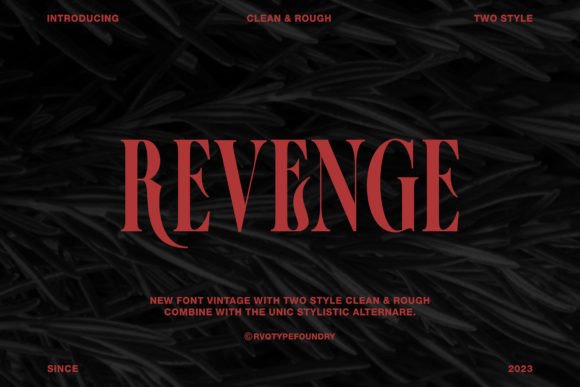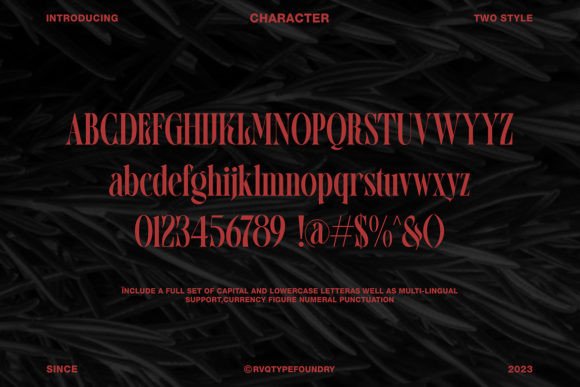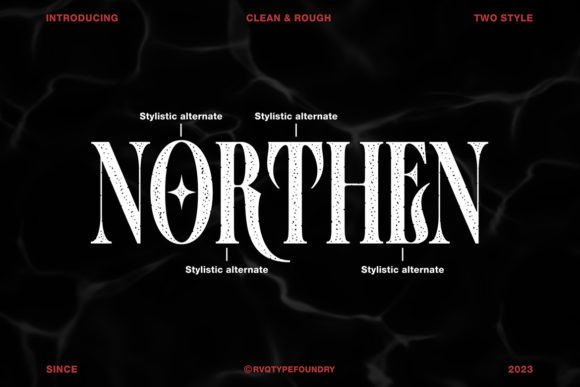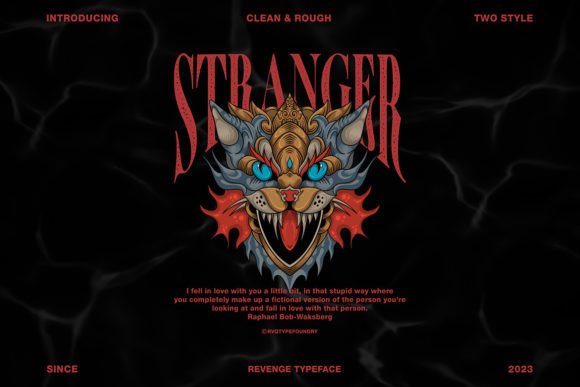
Revenge Font: Retro Serif Font for Unique Logo Design & Branding
About the Revenge Font
The wait is over! The incredible Revenge Font is now available for your design toolkit. Revenge with two styles clean and rough, was created as a dual-purpose font. It is used to create a beautiful combination, just mixing your words with the alternative glyphs. Use this serif font to add that special retro touch to any design idea you can think of!
Revenge Font’s clean style excels in headlines, logos, and short impactful text for posters or branding materials aiming for a retro-modern aesthetic. The rough style adds a gritty, rebellious edge, ideal for edgy packaging or punk-inspired projects. However, both styles are unsuitable for body text or UI elements due to low readability in extended passages.
Consider pairing the clean style with a geometric sans-serif like Futura for a balanced, modern feel, or with a script font like Playfair Display for a touch of vintage elegance. The rough style pairs well with a bolder, slab-serif font like Rockwell for a powerful, rebellious statement, or a minimalist sans-serif like Montserrat for contrast.
Revenge Font projects a bold, versatile personality, capable of both refined retro charm and raw, rebellious energy depending on the chosen style and pairings. Its dual nature makes it a strong choice for brands seeking to convey a complex and dynamic identity.
Revenge Font Usage Examples
Revenge Font Example